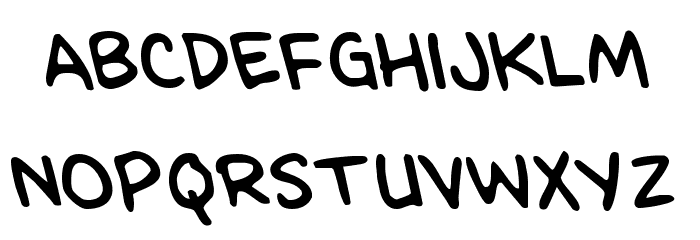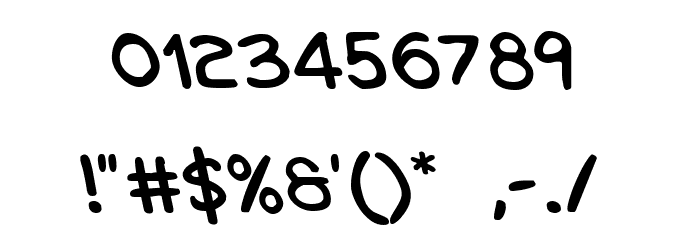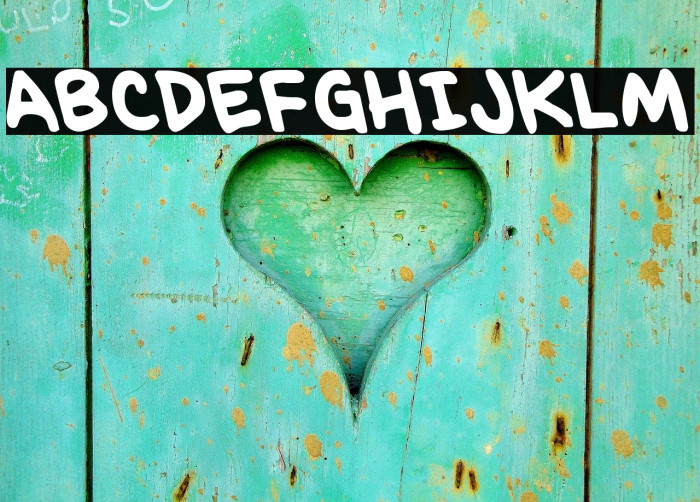
Kangaroo Court Leftalic Font
This playful and quirky font features a handwritten style with a slight leftward slant, giving it a unique and informal appearance. The characters are bold and rounded, with a consistent stroke width that maintains readability while adding a touch of whimsy. The uppercase and lowercase letters are well-balanced, and the numerals are clear and distinct. Special characters are included, enhancing its versatility. This font is perfect for projects that require a fun and approachable aesthetic.
A playful, handwritten font with a bold, rounded style and slight leftward slant.
- Font: Kangaroo Court Leftalic
- Proposed Projects: Ideal for children's books, comic strips, playful branding, and casual invitations.
- Category: Handwritten
- Overall Style: Playful
- Use Case: Headlines, Logos, Informal Text